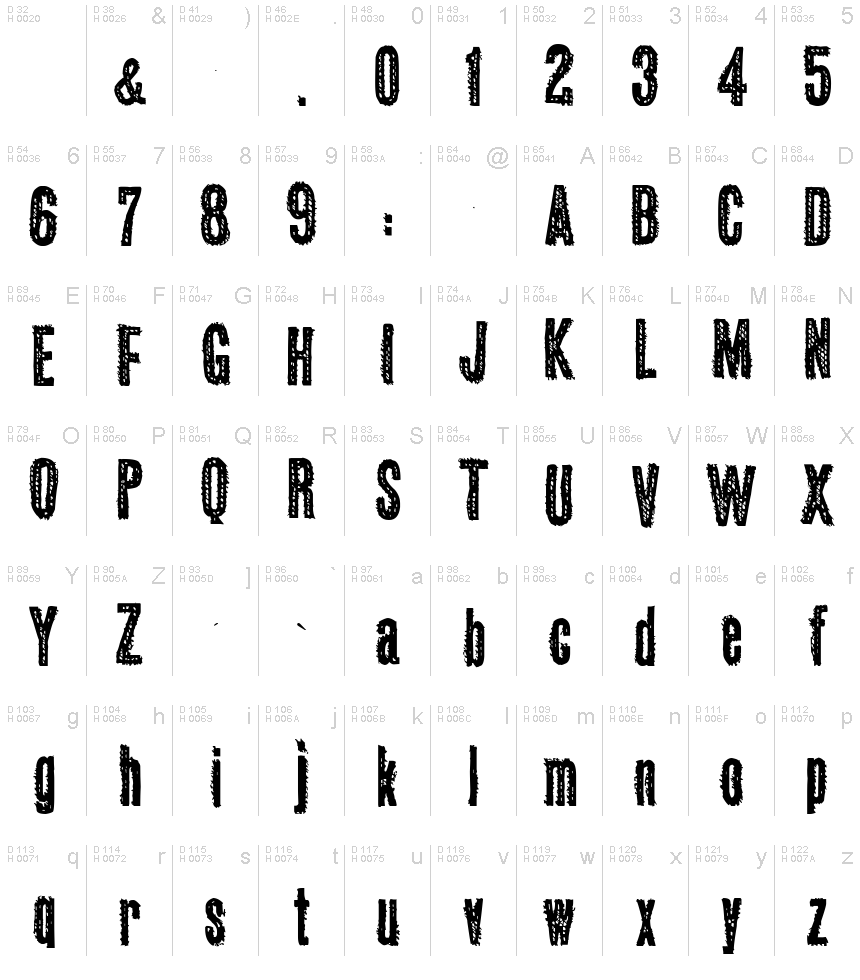
OKAS
Okas is a strikingly bold and unconventional display font that exudes a raw, gritty aesthetic. The eroded, condensed letterforms create a commanding presence, evoking a sense of weathered resilience. This font's distinct personality lends itself well to a variety of applications, from editorial design to branding and packaging. Okas thrives in contexts where a bold, attention-grabbing statement is desired, effortlessly commanding the viewer's attention.
Its unique character could elevate projects seeking to convey a sense of rugged authenticity, industrial chic, or a defiant, rebellious spirit.